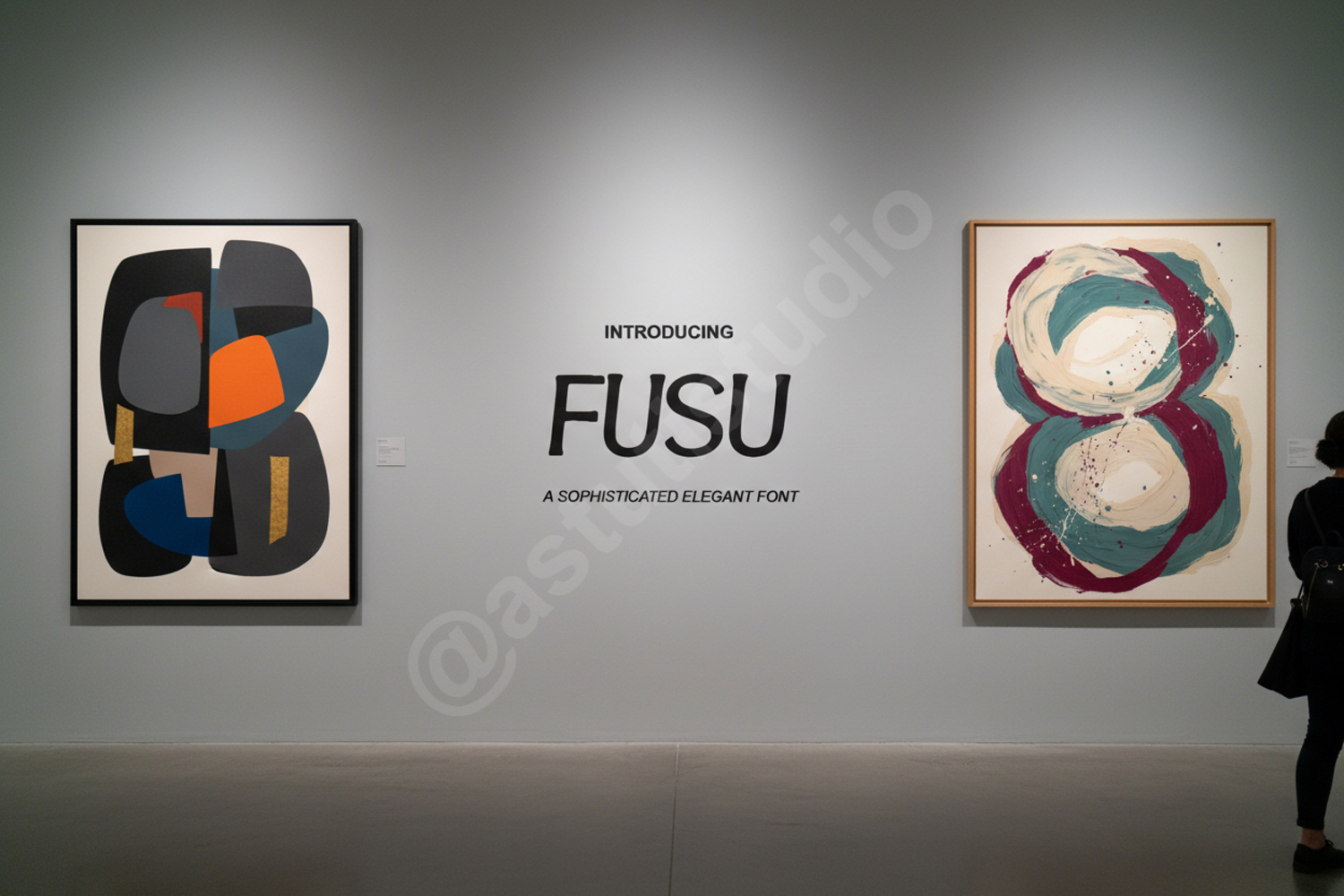
Fusu - Modern Minimalist Sans Serif
Fusu
Fusu is a premium minimalist sans serif font crafted for designers who value clean lines and professional aesthetics. With its balanced proportions and modern silhouette, Fusu brings a sophisticated touch to any creative project. Whether you are building a high-end brand identity or designing a sleek user interface, this font offers the versatility and clarity needed to make a lasting impression.
- Branding and Visual Identity: Perfect for logos, business cards, and corporate stationery.
- Editorial Design: Ideal for magazine layouts, book covers, and headers.
- Digital Presence: Excellent for website headers, mobile apps, and social media graphics.
- Advertising: Clean and legible for posters, billboards, and marketing materials.